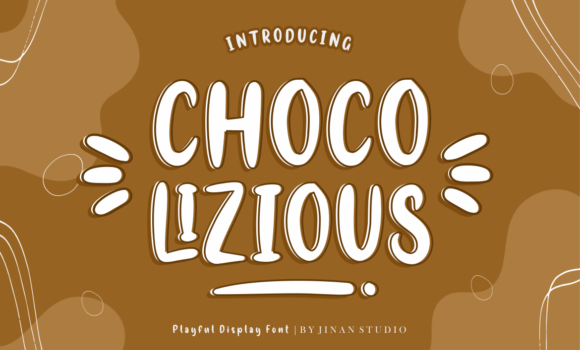
chocolizious
Chocolizious Font – Free Download Introduction to Chocolizious Font Chocolizious is a playful and delicate display font, suitable for a wide spectrum of applications. 📸 Preview Gallery 6 images 📌 Product Name Chocolizious Font 👤 Author jinanstd 📂 Category Explore